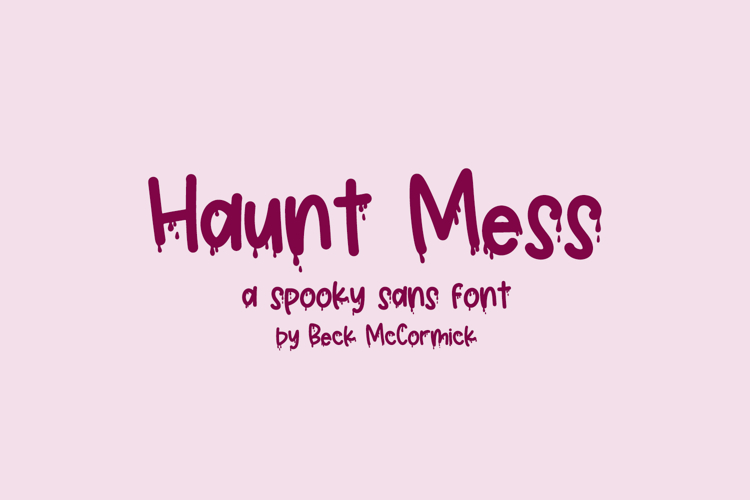
Haunt Mess Sans is a creepy, drippy font designed with all of your Halloween projects in mind! If you’re a fan of all things horror or true crime, use this font to add a bloody touch to your design. Not into the gore? Use Haunt Mess as a slimy detail, or even use Haunt Mess for those hot, melty summer days. Haunt Mess is perfect for spooky home decor projects, your Cricut or Silhouette machine, scary logo or branding projects & marketing materials, social media graphics, & more!